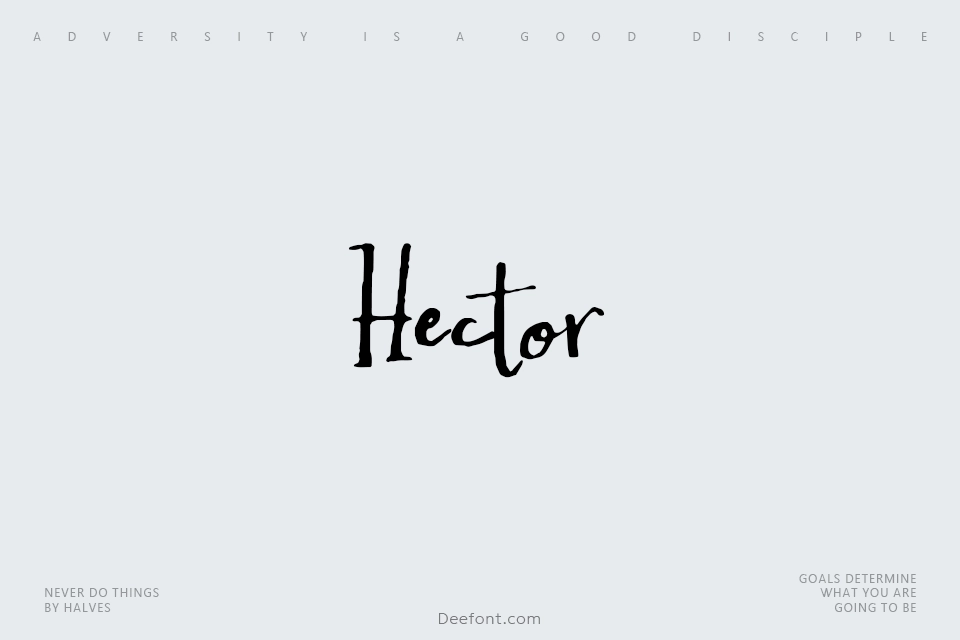
Hector Font
Hector is a graceful handwritten script font designed by Awanstudioz that brings elegant hand-lettering to your creative projects. Perfect for logos, wedding invitations, product labels, fashion designs, quotes, and advertising materials, this versatile typeface combines casual elegance with professional polish. The font features smooth, flowing strokes that create a personal, artistic touch while maintaining excellent readability across various applications including packaging, merchandise, greeting cards, and poster design. Ideal for designers seeking authentic, contemporary handwritten aesthetics.